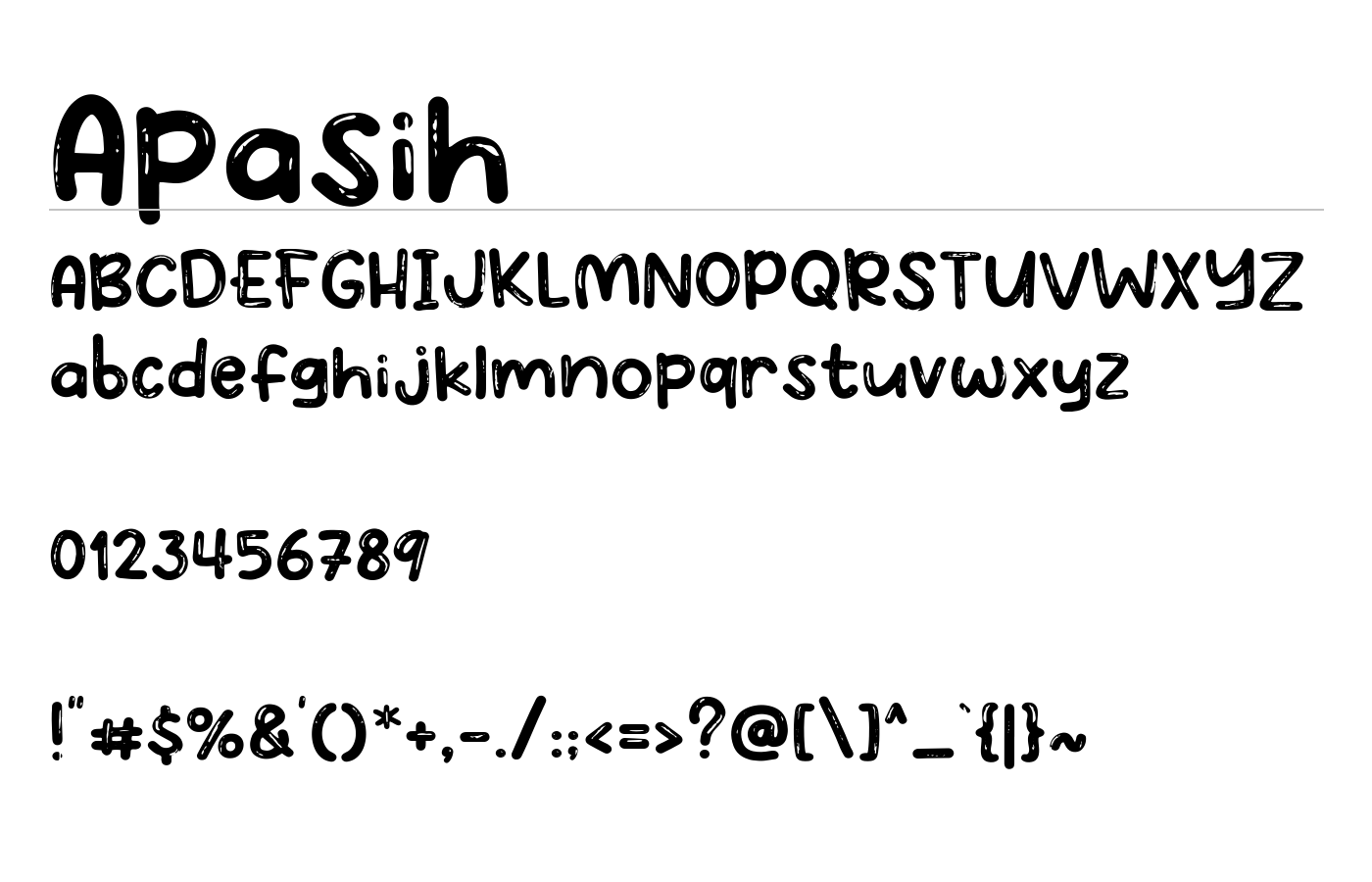
Apasih is a playful and friendly sans serif font with a hand-drawn, slightly textured appearance that gives it a casual and approachable vibe. Its rounded, irregular shapes and moderate contrast create a warm, informal feel, making it ideal for creative projects, children’s materials, and any design seeking a fun and personal touch. This font works well for headlines, logos, and packaging where a lively and unique character is desired.
Apasih Font
About Apasih Font